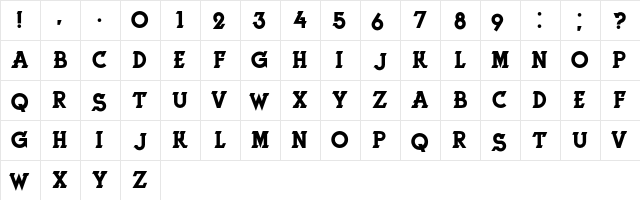
Herne Regular
Design Context for Herne Typeface
Herne is a composed and adaptable typeface that performs quietly and consistently across a wide range of design contexts.